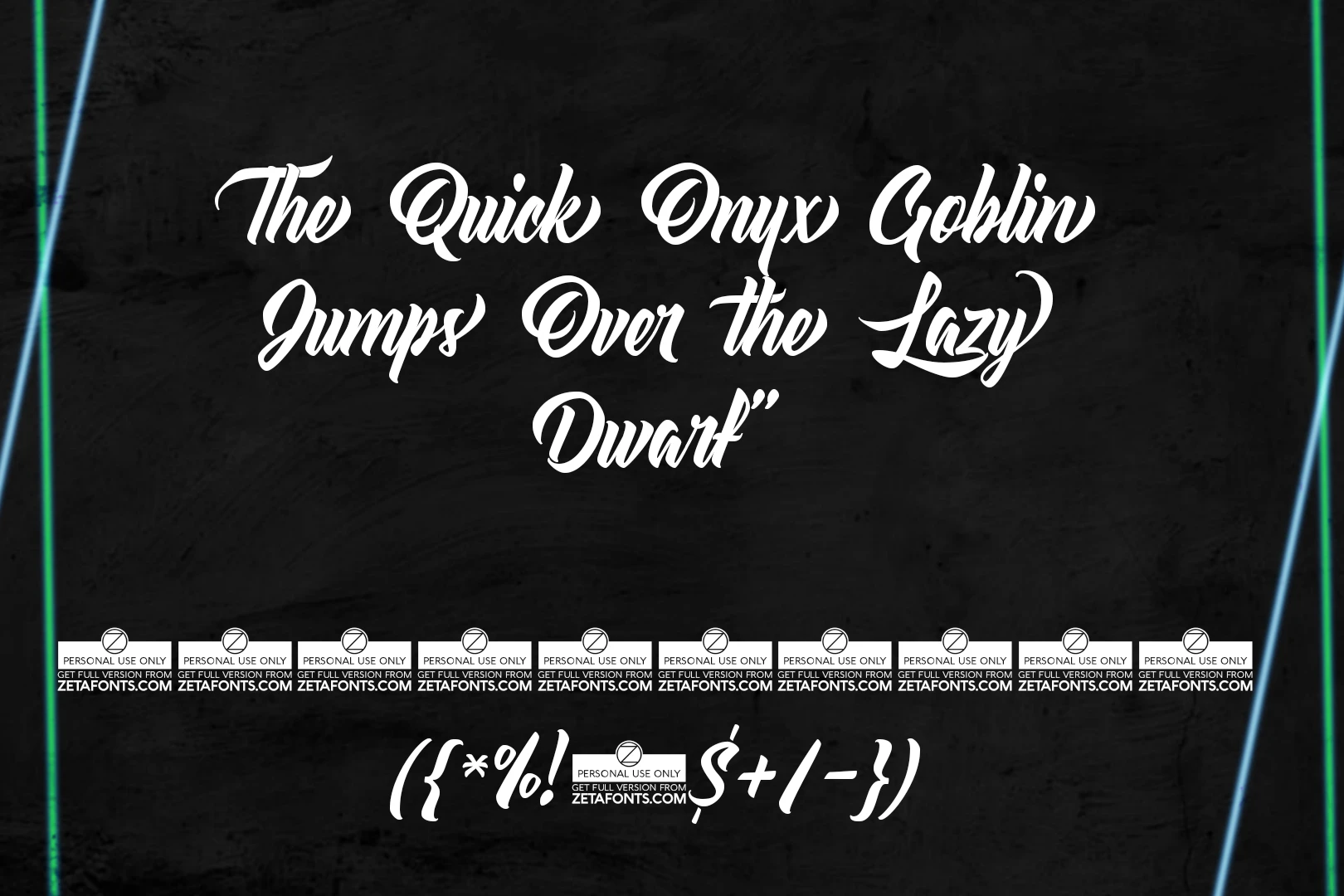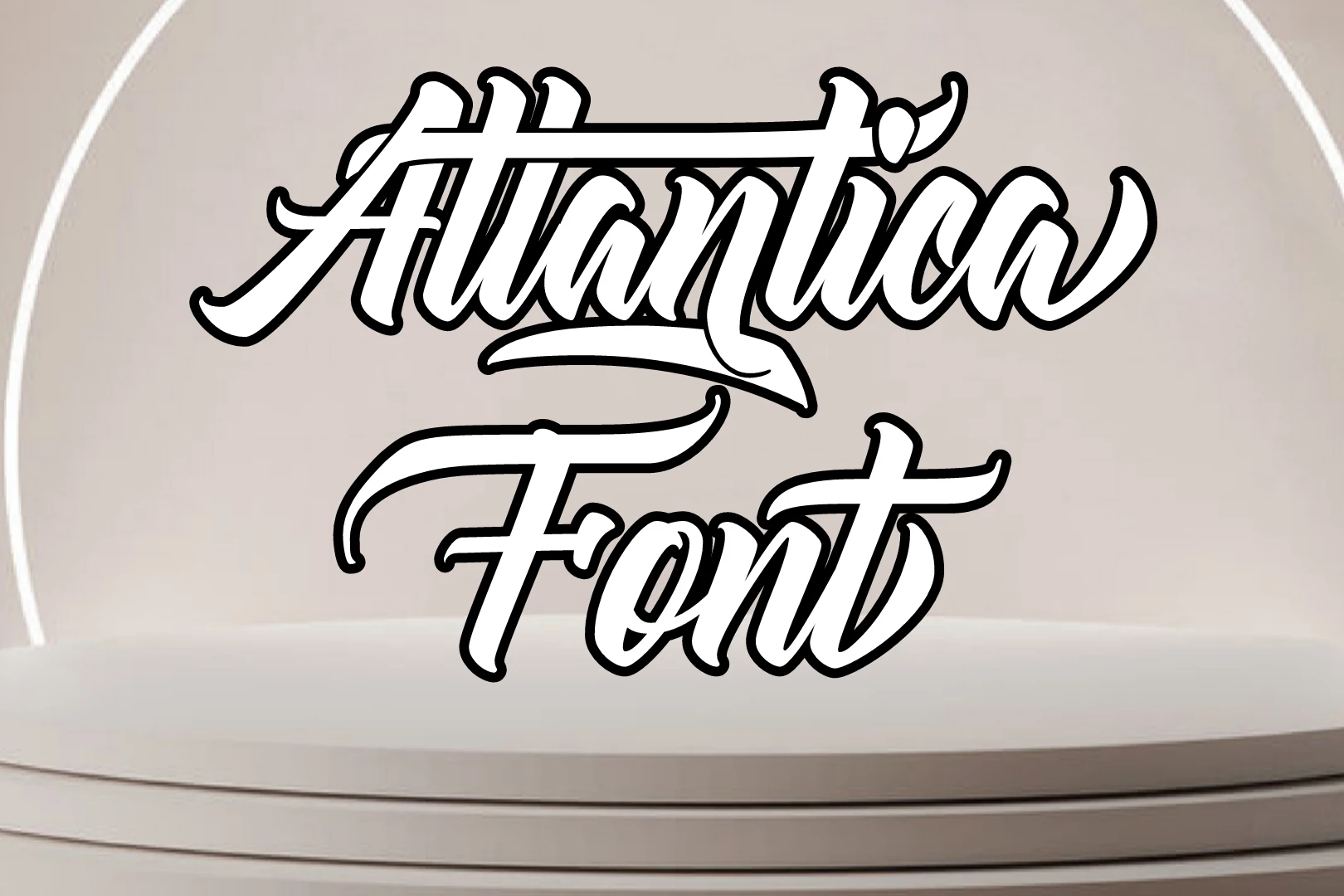
Atlantica Font was Designed by Vladimir Nikolic and stands as a testament to the elegance and simplicity of a basic sans-serif texture family. Nikolic’s artistic touch is evident in every curve and line, creating a versatile font that balances modernity and readability. As well as it belongs to the basic sans-serif texture family, making it a reliable choice for a wide range of design projects.
Its style is characterized by straightforward lines and a lack of decorative flourishes, enhancing its readability and versatility. Its clean lines and minimalist aesthetic are a go-to choice for designers seeking a font that effortlessly blends sophistication with simplicity. This basic sans-serif typeface offers a versatile canvas for various design applications.
Designer of Atlantica Font
Vladimir Nikolic, the creative mind behind Atlantica texture, brings a unique perspective to sans-serif design, emphasizing clarity and visual appeal. The font’s streamlined design is a reflection of Nikolic’s commitment to simplicity.
Usage of Altantica Font
Whether used for digital or print media, this texture adapts seamlessly to different contexts. Its clean design makes it suitable for branding, editorial work, web design, and more. The font’s versatility makes it a valuable asset for designers looking for a timeless and modern typeface.
Alternative Fonts of Altantica Font
Helvetica Font: Helvetica, a timeless sans serif font, is celebrated for its clean lines and remarkable versatility. Its global recognition makes it a top choice in various design applications, from corporate branding to print and digital design.
Arial Font: Arial, a widely accessible sans serif font, shares similarities with Helvetica but carries subtle distinctions. Widely used in digital and print contexts, it has become a default font in many operating systems, websites, and documents.
Proxima Nova Font: Proxima Nova is a modern and elegant sans-serif font known for its clean lines and readability. Versatile and well-suited for both web and print applications, it has gained popularity in corporate branding, websites, and editorial design.
Gotham Font: Gotham, with its geometric and contemporary aesthetic, has become a staple for modern and minimalist designs. Widely used in branding, signage, and editorial layouts, it exudes a sleek and sophisticated vibe.
Avenir Font: Avenir, a balanced and versatile sans serif font, strikes a harmonious chord between modernity and timelessness. Its clean design makes it suitable for various design applications, offering a modern and timeless appeal.
Futura Font: Futura, renowned for its geometric shapes and modernist aesthetics, is a classic sans serif font often chosen for avant-garde design. Its unique design elements make it a distinctive choice in creative projects.
Roboto Font: Roboto, specifically designed for digital interfaces, is celebrated for its clarity and readability. A popular choice in app and web design, it seamlessly adapts to various screen sizes, ensuring a consistent and legible user experience.
Lato Font: Lato, with its clean and friendly design, is a versatile sans-serif font suitable for a range of applications. Its readability and modern aesthetic make it a popular choice for websites, print materials, and branding projects.
Font Family of Altantica Font
- Altantica Regular
- Altantica Bold
- Altantica Italic
Frequently Asked Questions (FAQs) About Atlantica Font:
What is Atlantica Font?
It is a basic sans serif texture family designed by Vladimir Nikolic, known for its simplicity and modern aesthetic.
Who is the designer of Atlantica Font?
Vladimir Nikolic is the creative mind behind it, bringing his unique perspective to sans serif design.
What style does Atlantica Font belong to?
It belongs to the basic sans serif texture family, characterized by straightforward lines and a lack of decorative elements.
Where can Atlantica Font be applied?
This texture is versatile and suitable for various design applications, including branding, editorial work, web design, and more.